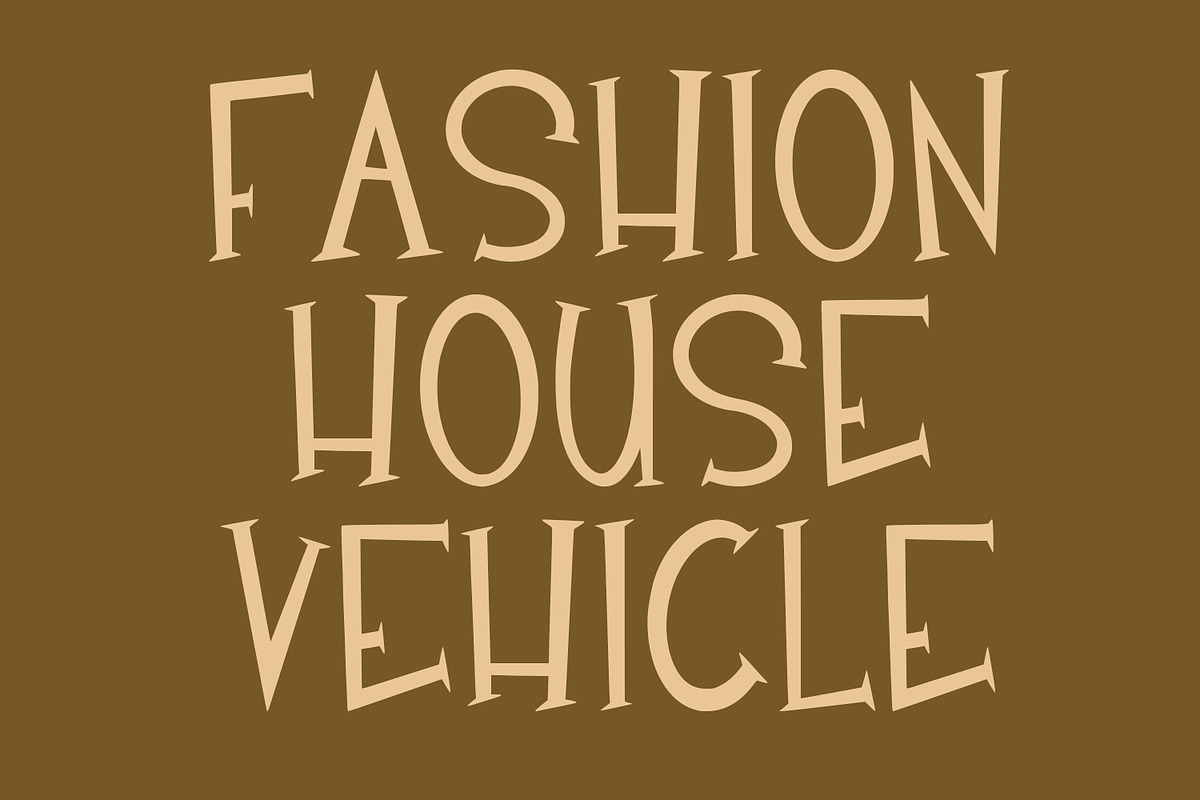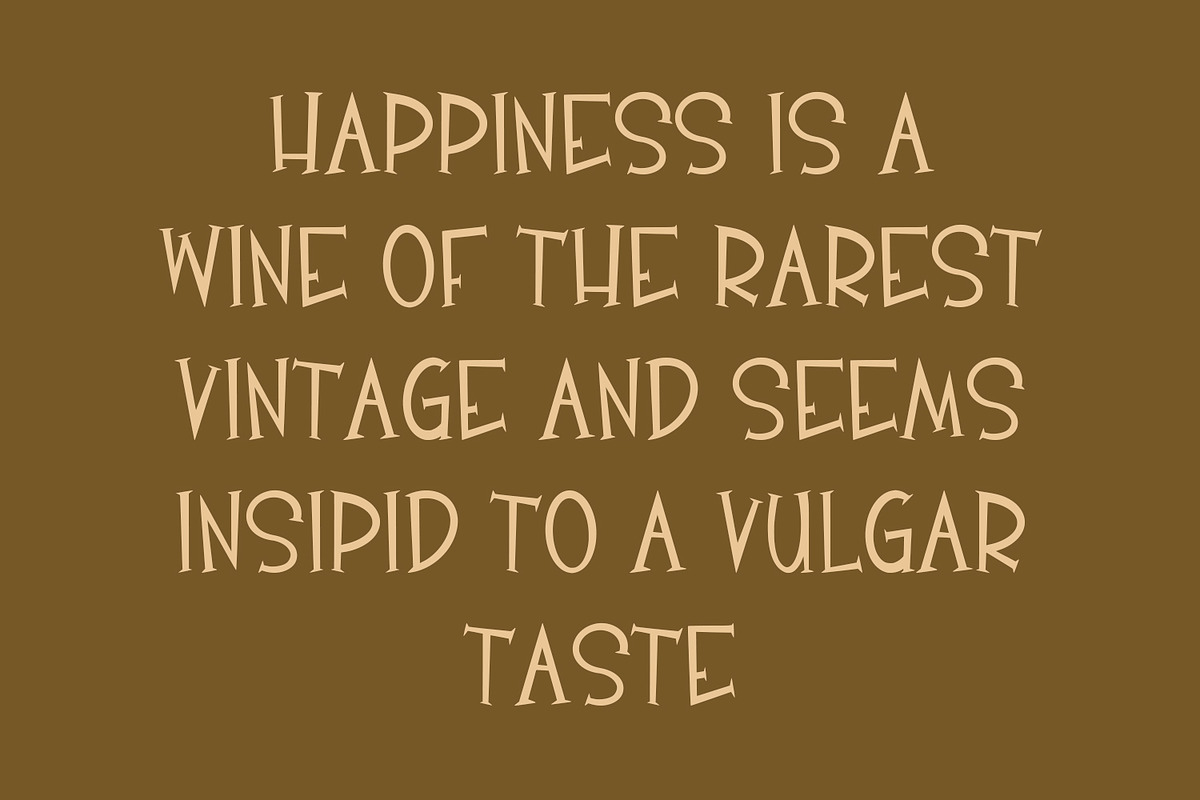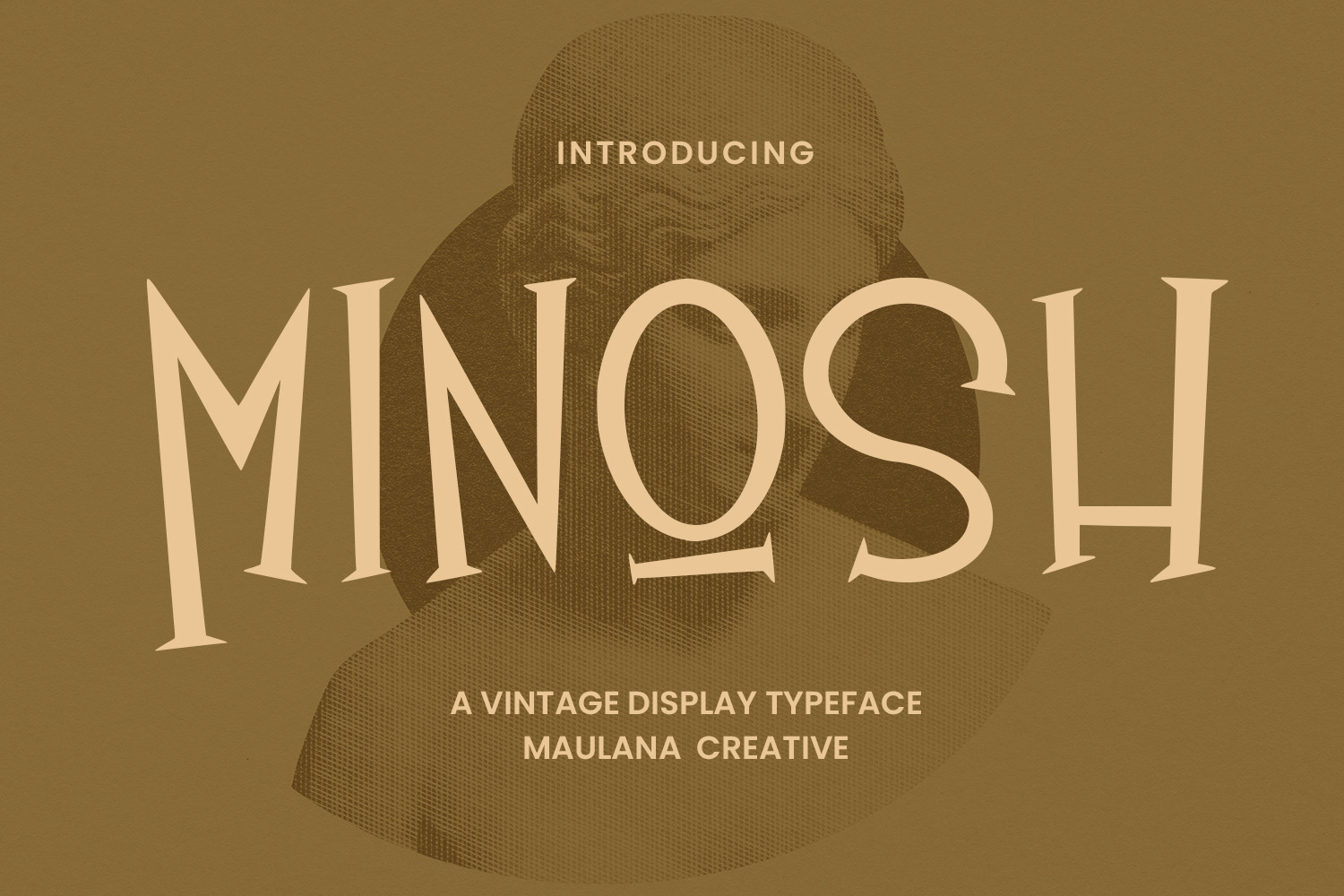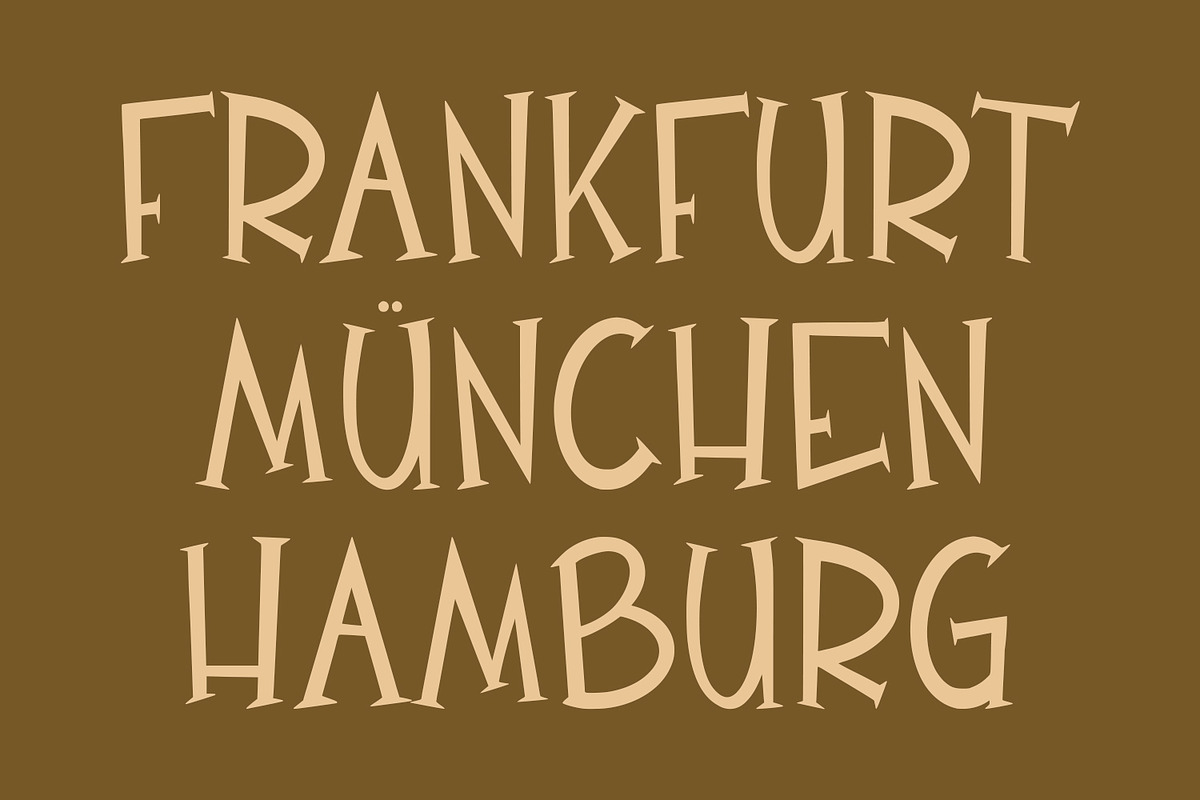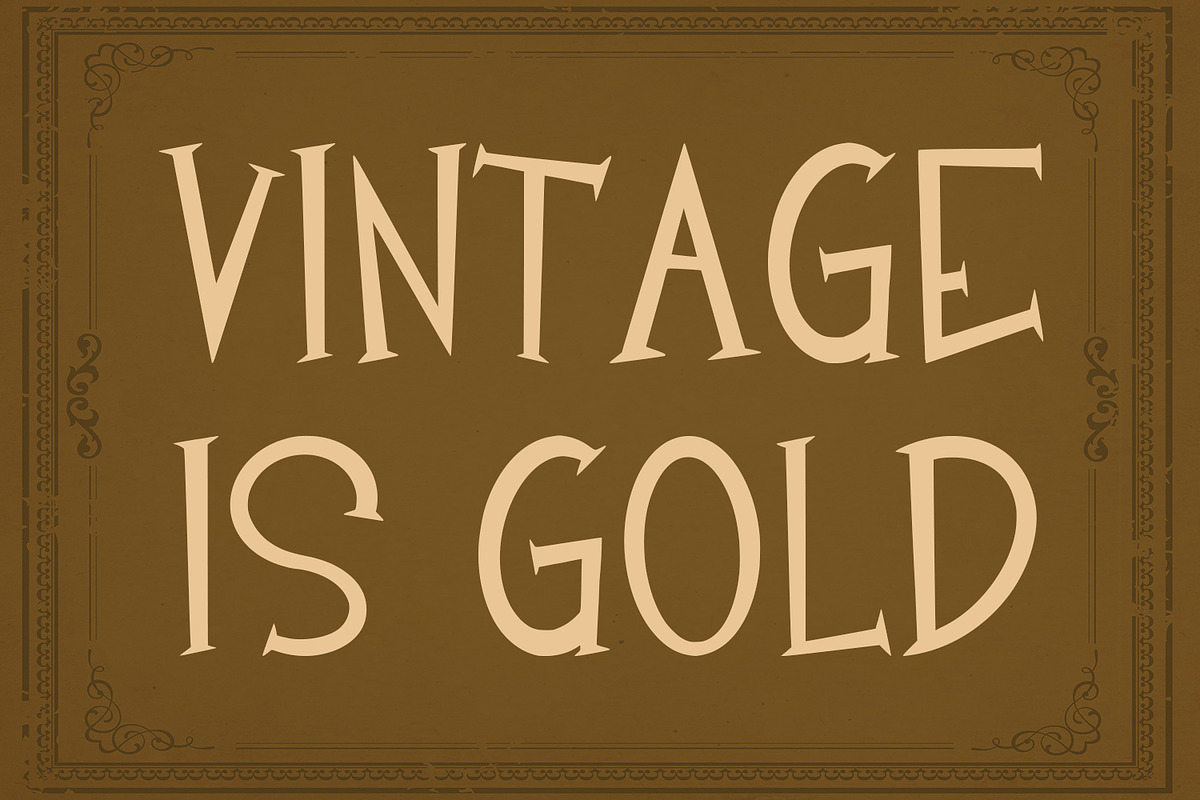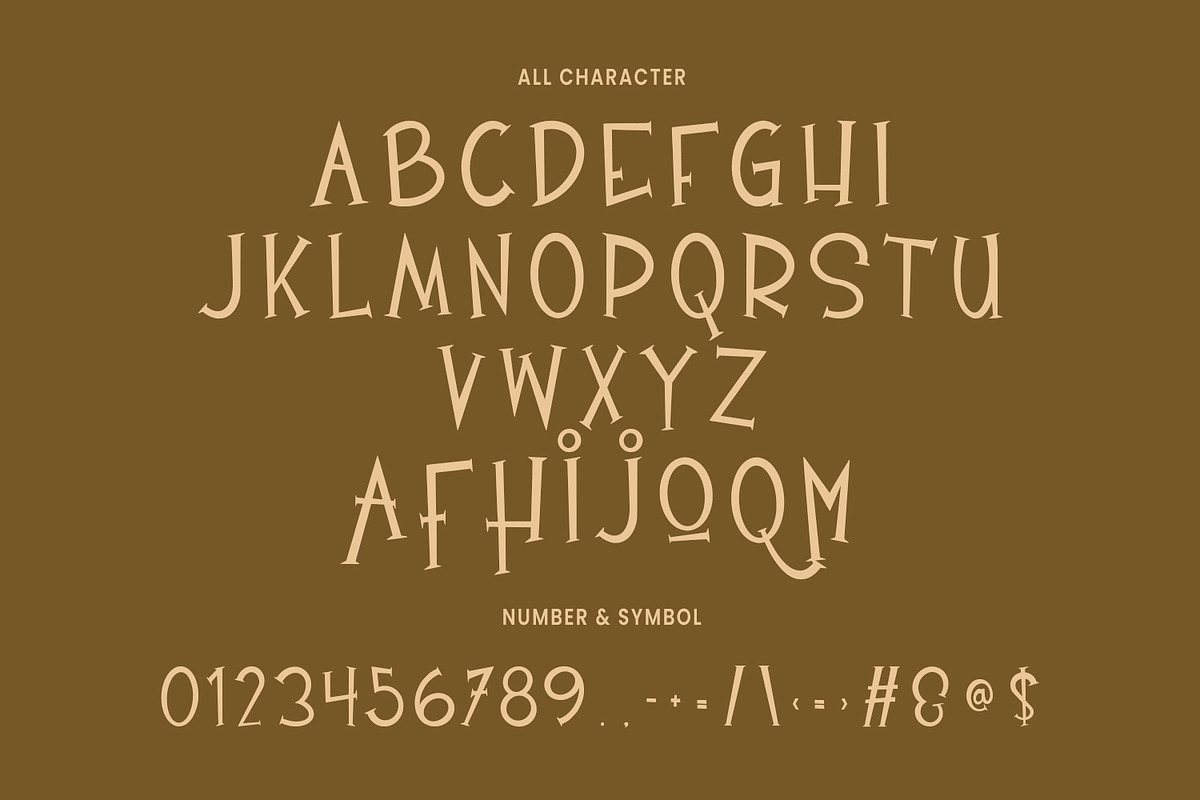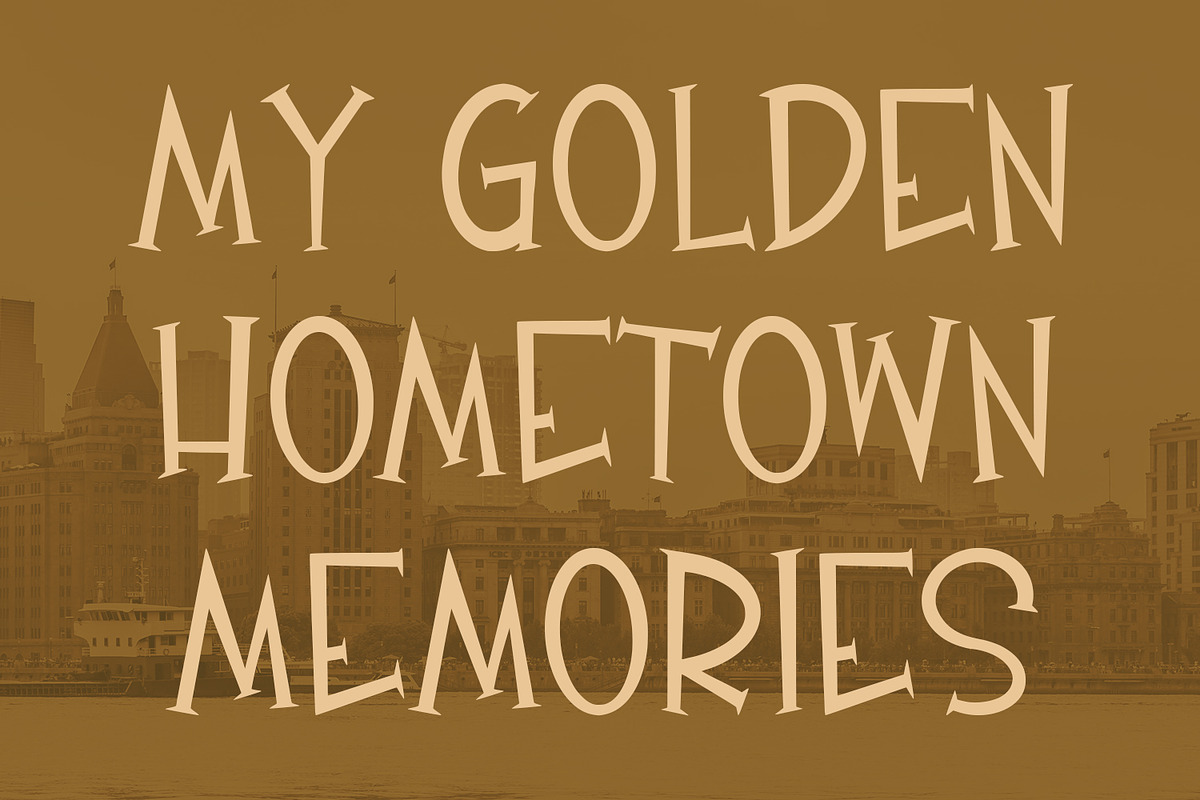
Minosh Vintage Display Typeface
Minosh is a vintage display typeface. With three weight stroke, fun character with a bit of ligatures. To give you an extra creative work. Minosh vintage display typeface support multilingual more than 100+ language. This font is good for logo design, Social media, Movie Titles, Books Titles, a short text even a long text letter and good for your secondary text font with sans or serif. Make a stunning work with Minosh vintage display typeface.